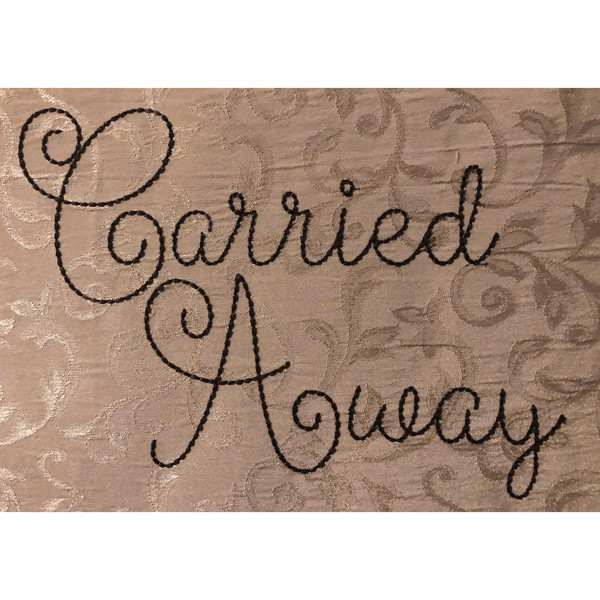
752 Carried Away Floss Font
752 Carried Away Floss Font comes in 0.5", 0.75", 1", 1.5", 2", 2.5", 3", 3.5" & 4" heights based on the capital "A". All sizes include uppercase letters, lowercase letters, numbers and ten punctuation marks. Lowercase letters stitch left to right with matching connection points to help reduce jump stitches when setting up words and names. All characters are finished in single line Floss Stitch as described in FAQ # 14.